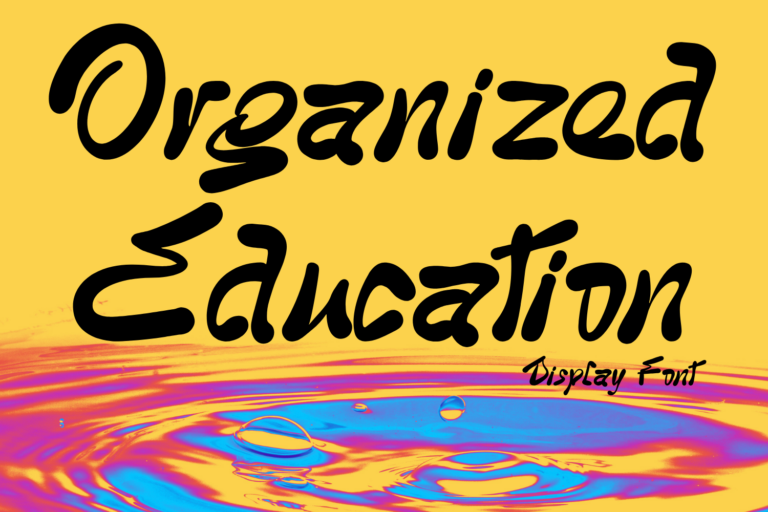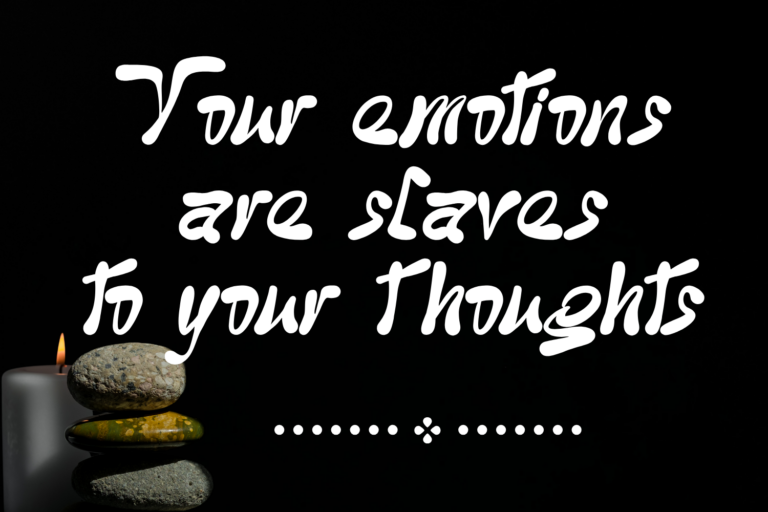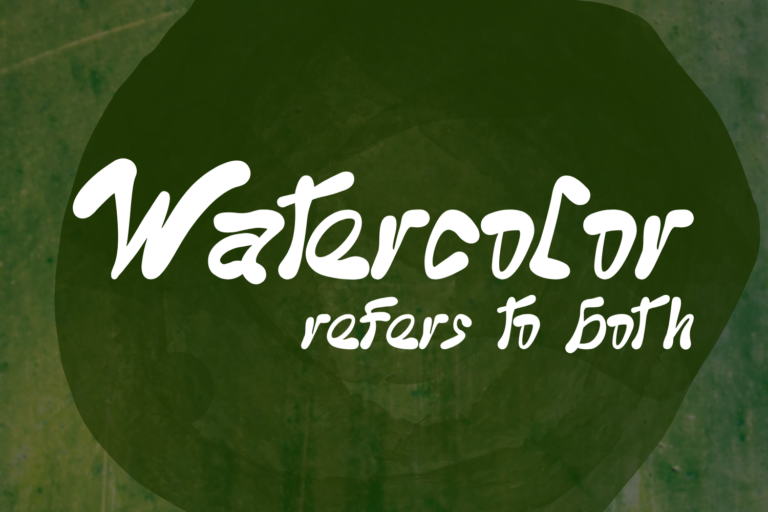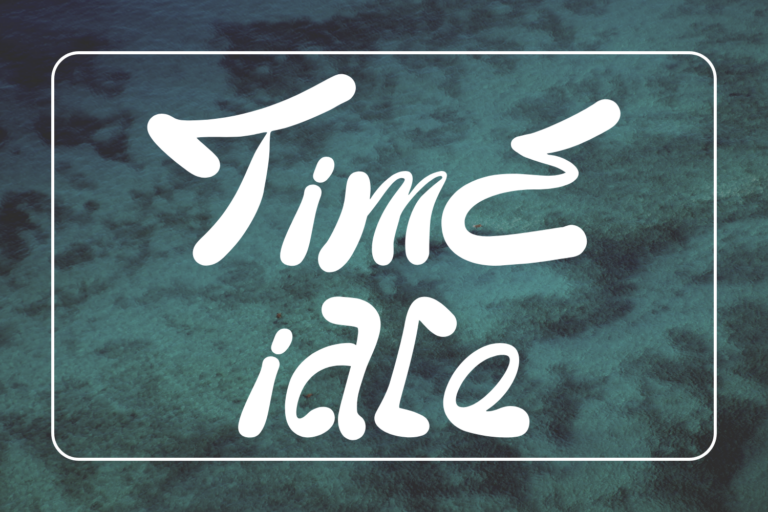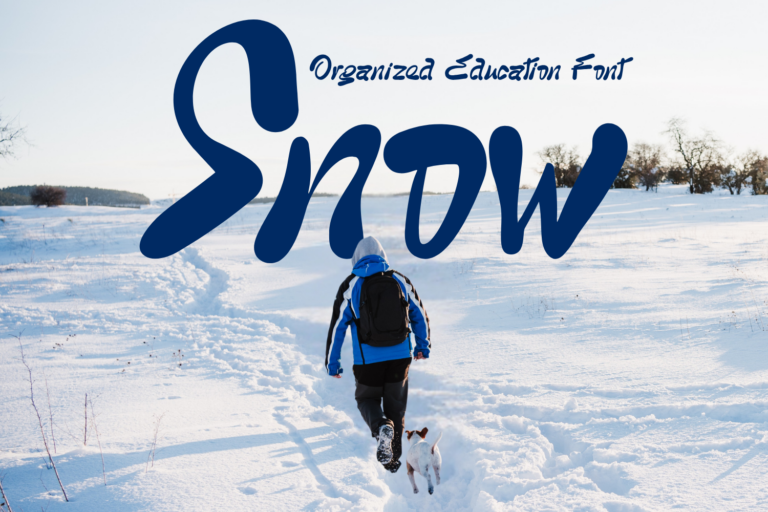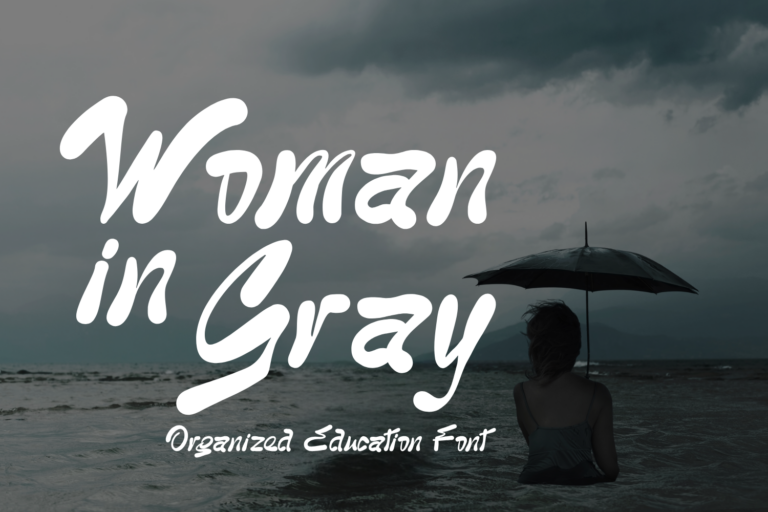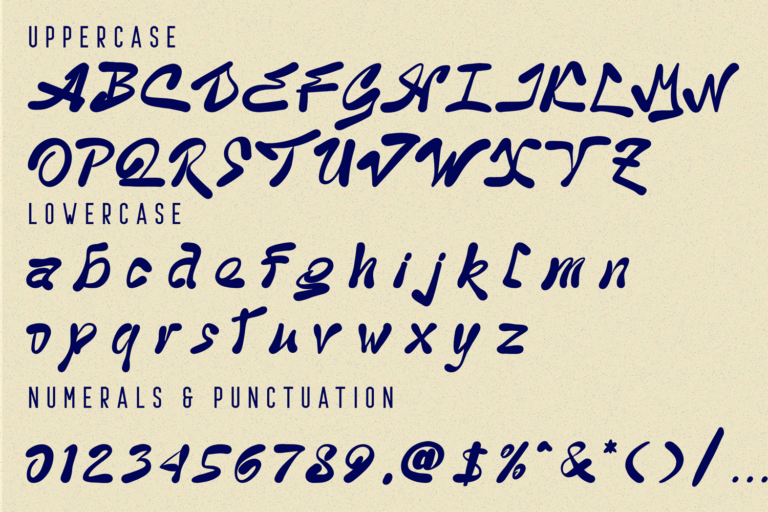
Organized Education – Playful Font – Playful Handwritten Script Typeface, a charming handwritten typeface that captures the warmth and spontaneity of casual brush lettering. Its lively, flowing forms and organically varied strokes bring an approachable, human touch to any project.
Perfectly suited for educational materials, friendly branding, posters, and children’s content, Organized Education adds a natural rhythm and whimsical character to your typography. Despite its playful vibe, it retains clear legibility and versatile usability.
• Natural flow with dynamic stroke modulation
Organized Education – Playful Font